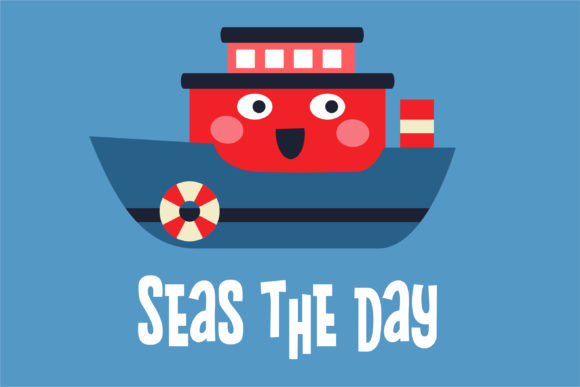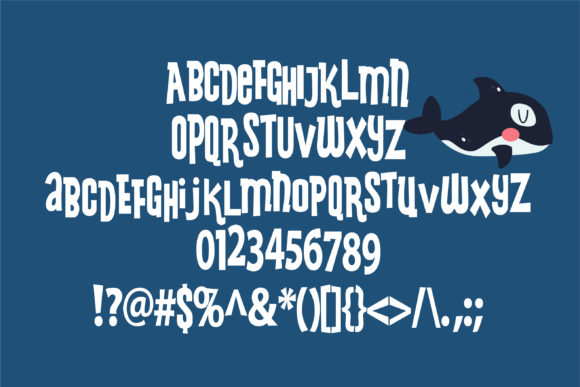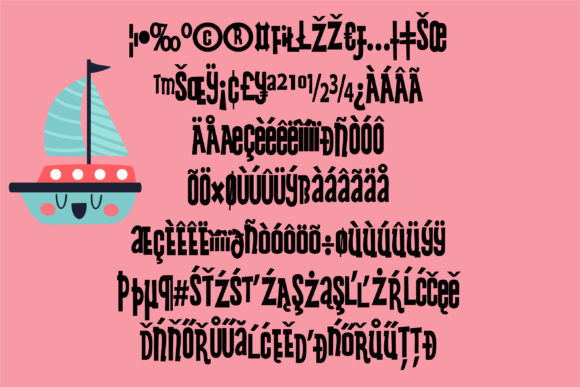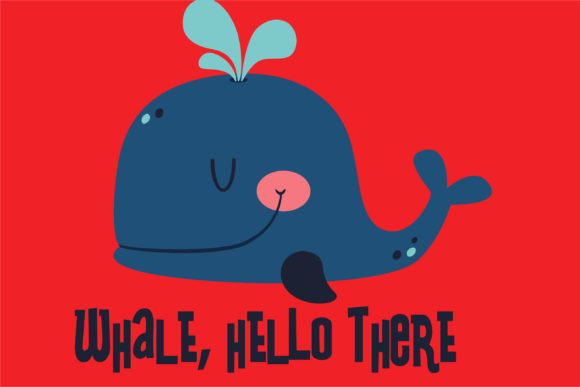
Introducing Ex-Boyfriend Font: Add a Touch of Whimsy to Your Designs
Are you tired of using the same old fonts in your design projects? Look no further than the Ex-Boyfriend Font, a charming sans serif font that’s sure to add a dash of playfulness to any design. With its unique and quirky style, this font is perfect for designers and crafters looking to make their text stand out from the crowd.
What is Ex-Boyfriend Font?
Ex-Boyfriend Font is a whimsical sans serif font that’s designed to bring a touch of fun and personality to your designs. Its clean and modern lines make it perfect for a wide range of projects, from digital designs to print materials. Whether you’re creating a social media graphic, a blog post, or a craft project, this font is sure to add a dash of whimsy and charm.
Key Features of Ex-Boyfriend Font
• Whimsical Design: Ex-Boyfriend Font features a unique and quirky design that’s sure to add a touch of personality to your text.
• Sans Serif: This font is a sans serif font, making it clean and modern.
• Playful: The Ex-Boyfriend Font is perfect for designers and crafters looking to add a dash of playfulness to their designs.
• Versatile: This font is perfect for a wide range of projects, from digital designs to print materials.
Why Use Ex-Boyfriend Font?
There are many reasons why you should consider using Ex-Boyfriend Font in your next design project. Here are just a few:
• Add Personality to Your Text: This font is perfect for designers and crafters looking to add a dash of personality to their text.
• Stand Out from the Crowd: With its unique and quirky design, Ex-Boyfriend Font is sure to make your text stand out from the crowd.
• Perfect for Creative Projects: This font is perfect for creative projects, such as crafts, DIY projects, and art.
• Easily Readable: Despite its whimsical design, Ex-Boyfriend Font is easily readable, making it perfect for body text and headlines.
How to Use Ex-Boyfriend Font
Using Ex-Boyfriend Font is easy. Here are just a few tips to get you started:
• Pair with Other Fonts: Pair Ex-Boyfriend Font with other fonts to create a unique and interesting design.
• Use for Headlines: Use Ex-Boyfriend Font for headlines and titles to add a dash of personality to your text.
• Experiment with Colors: Experiment with different colors to find the perfect combination for your design.
• Have Fun: Most importantly, have fun with Ex-Boyfriend Font! This font is designed to be playful and whimsical, so don’t be afraid to get creative.
Who is Ex-Boyfriend Font For?
Ex-Boyfriend Font is perfect for designers and crafters who are looking to add a dash of personality to their designs. This font is ideal for:
• Graphic Designers: Graphic designers who are looking for a unique and playful font to add to their designs.
• Crafters: Crafters who are looking for a font to use in their DIY projects, such as handmade cards and scrapbooking.
• Small Business Owners: Small business owners who are looking for a font to use in their branding and marketing materials.
• Bloggers: Bloggers who are looking for a font to use in their blog posts and social media graphics.
In conclusion, Ex-Boyfriend Font is a whimsical sans serif font that’s perfect for designers and crafters looking to add a dash of playfulness to their designs. With its unique and quirky design, this font is sure to make your text stand out from the crowd. Whether you’re creating a digital design or a print material, Ex-Boyfriend Font is a great choice. So why not give it a try and see how it can add a touch of whimsy to your next design project?